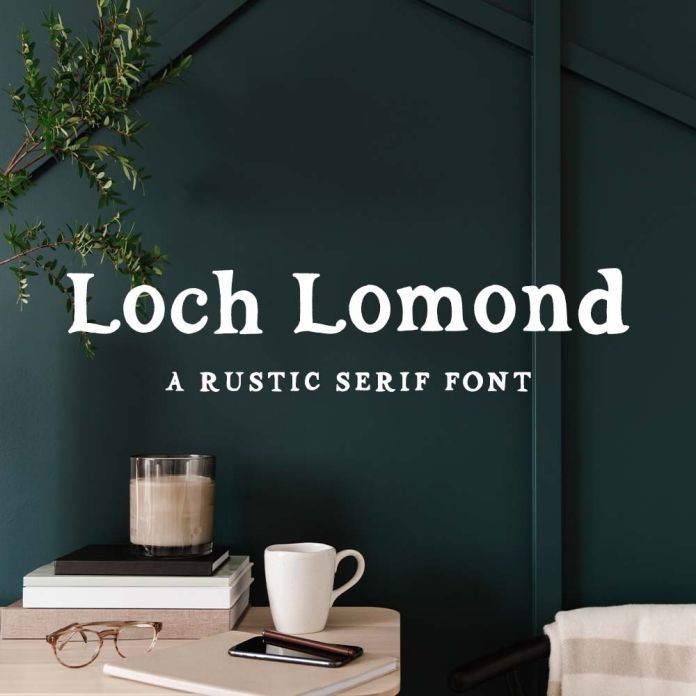
Introducing Loch Lomond, a handlettered serif font with a textured edge. Loch Lomond Serif features bold, strong letters perfect for attention grabbing logos or headlines.
Loch Lomond Serif is best for:
- website design + website accents - think travel blogs, fashion blogs, & more